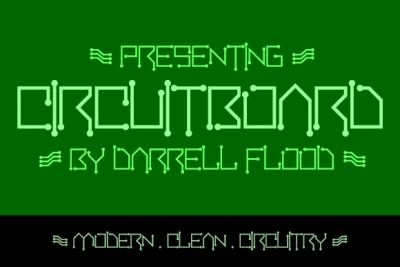
Circuitboard Font
Circuitboard Font is perfect for technology branding, electronics product packaging, tech startup logos, computer hardware marketing, engineering project designs, robotics branding, electronic music graphics, digital innovation campaigns, tech conference materials, gadget packaging, software interface designs, and any design project requiring a futuristic electronic aesthetic.
What makes Circuitboard Font exciting is its technological precision that captures the intricate beauty of electronic circuitry and digital innovation. The font's circuit-inspired letterforms evoke the sophisticated complexity of modern technology, making it ideal for brands operating in tech, electronics, and innovation sectors. Its distinctive character communicates expertise and cutting-edge advancement, helping designers create compelling content that resonates with tech-savvy audiences who appreciate the artistry behind technological innovation.
The Circuitboard Font family typically includes uppercase and lowercase characters, numerals, punctuation marks, and circuit-pattern design elements that enhance its technological aesthetic.
Looking for the Circuitboard Font? This innovative typeface brings the precision and sophistication of electronic engineering to every design project, combining technical inspiration with creative typography. Whether you're developing tech brand identities, creating electronics packaging, or crafting materials for innovation-driven industries, this font delivers the technological character and futuristic appeal needed to communicate advancement and expertise across all digital and print platforms.